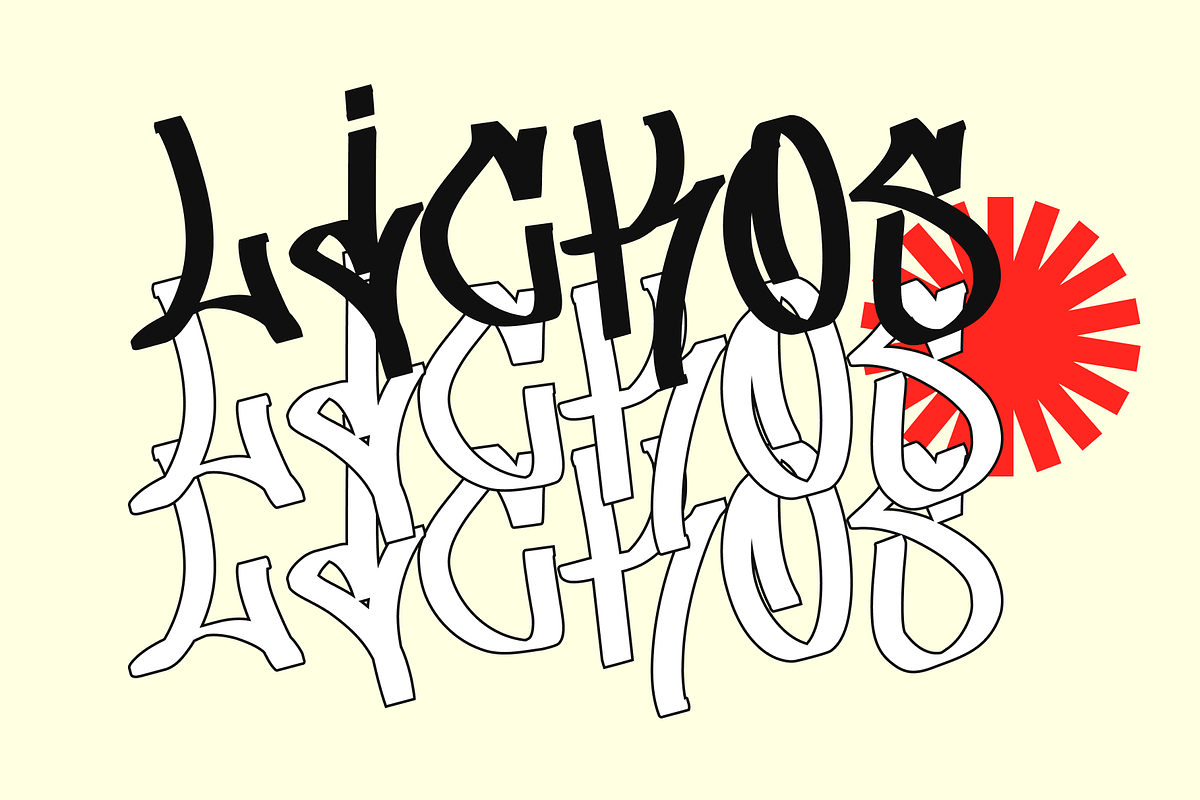
Lickos Graffiti Typeface Free Download
Make your designs pop with bold street energy using Lickos Graffiti Typeface Free Download. This expressive typeface captures the raw, urban aesthetic of graffiti art—perfect for streetwear branding, music covers, skate culture graphics, event posters, and edgy digital content.
Lickos features wild strokes, spray-paint textures, and dynamic, stylized letterforms that embody rebellion and creativity. It includes uppercase characters, numbers, punctuation, and graffiti-inspired alternates—giving you all the tools to test high-impact, rule-breaking layouts.